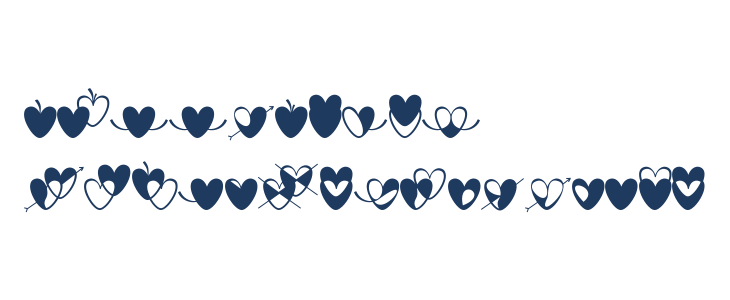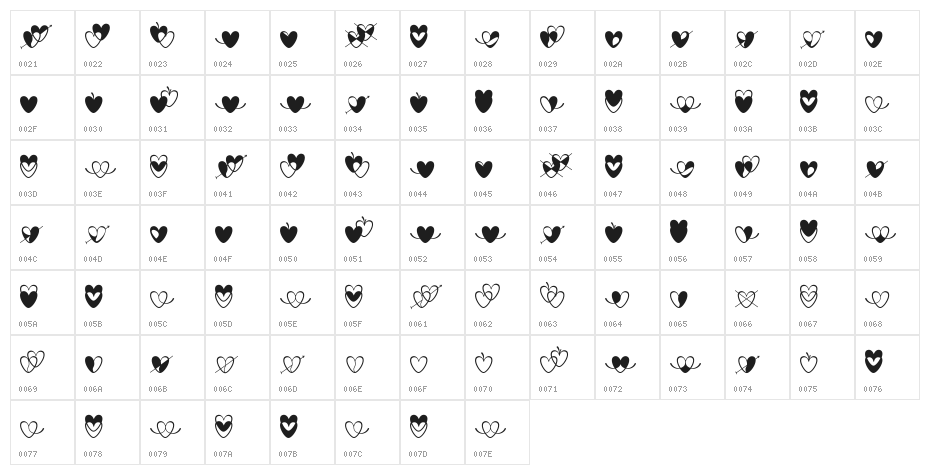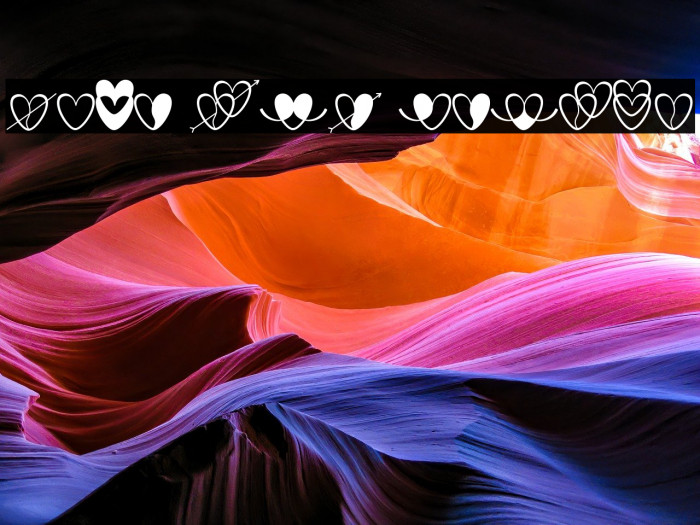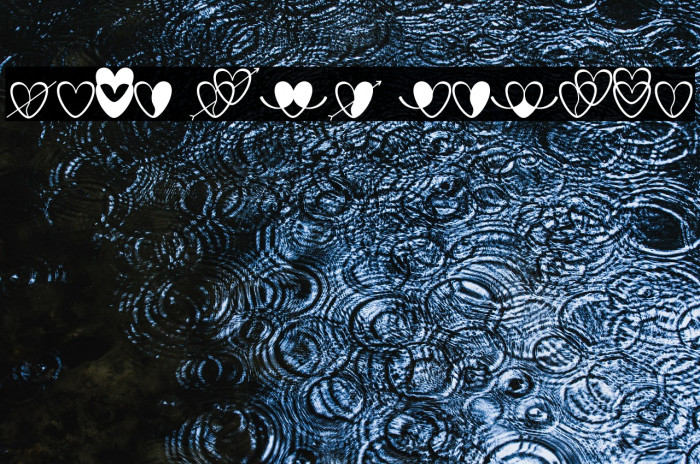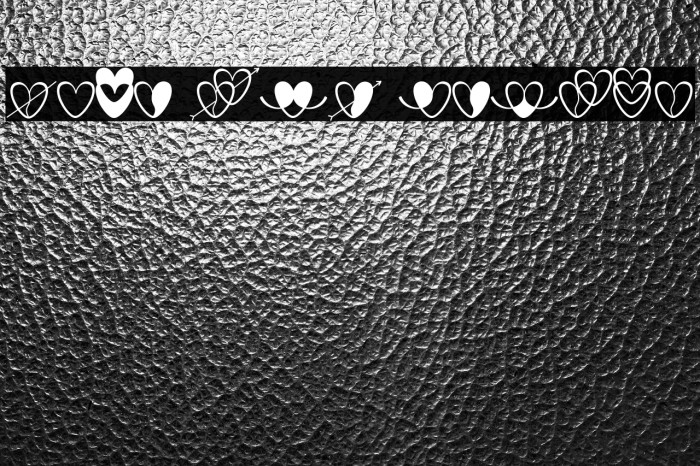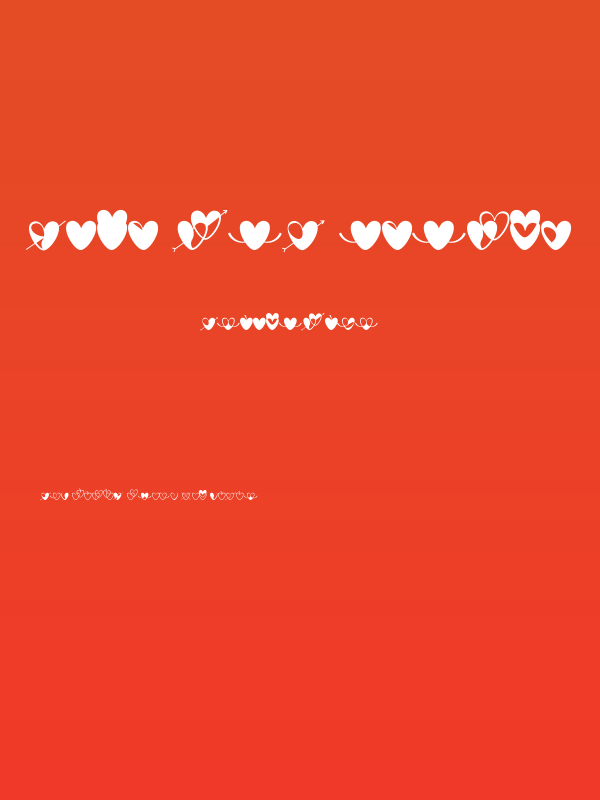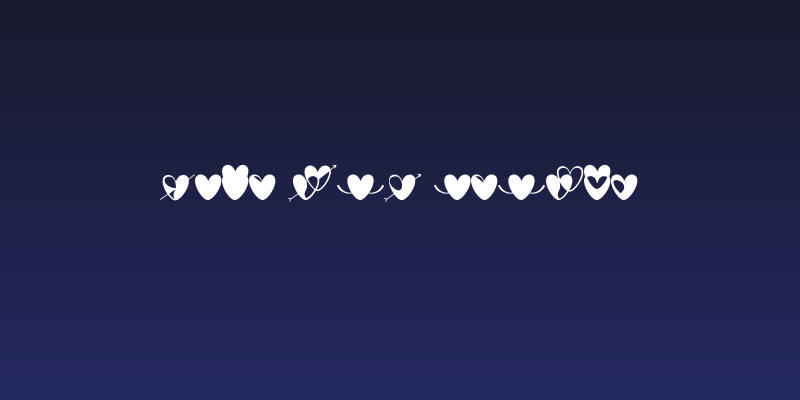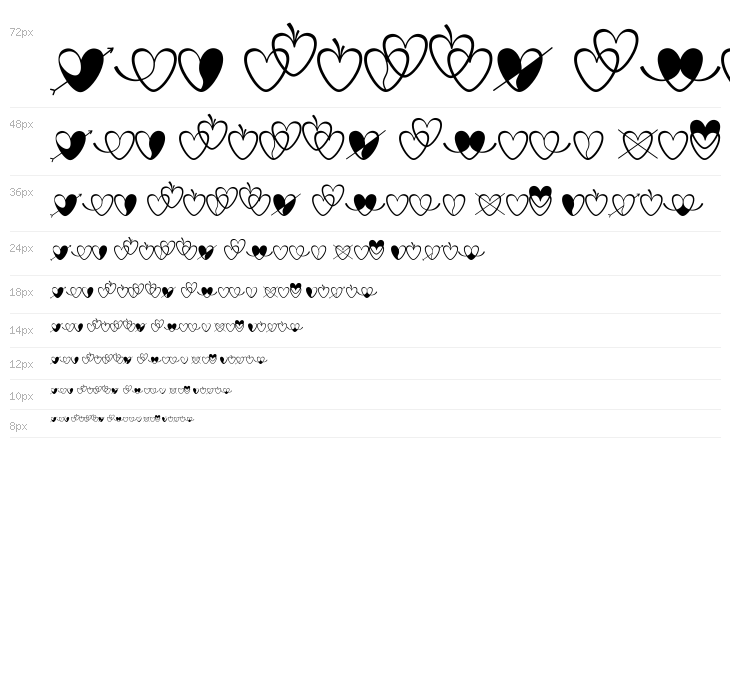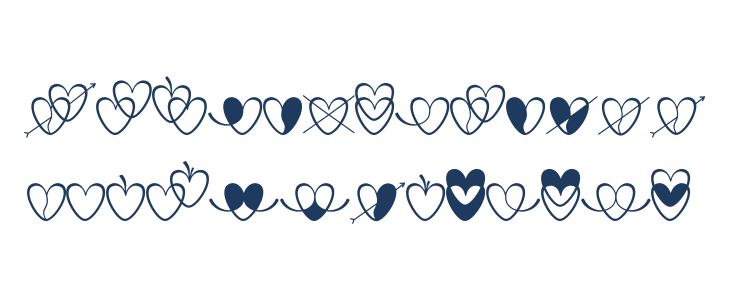
love art design Font
love art design Description
This design features a series of heart shapes intertwined with arrows, creating a playful and romantic pattern. The hearts vary in style, some filled and others outlined, with arrows adding a dynamic flow. The overall look is whimsical and decorative, perfect for conveying themes of love and affection. The design is consistent across the rows, maintaining a cohesive aesthetic that is both charming and visually engaging.
| Use Case | Decorative art, Themed invitations, Posters |
| Proposed Projects | Ideal for Valentine's Day cards, wedding invitations, love-themed posters, and decorative art projects. |